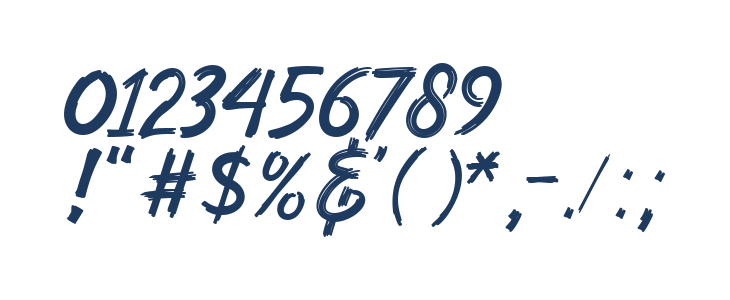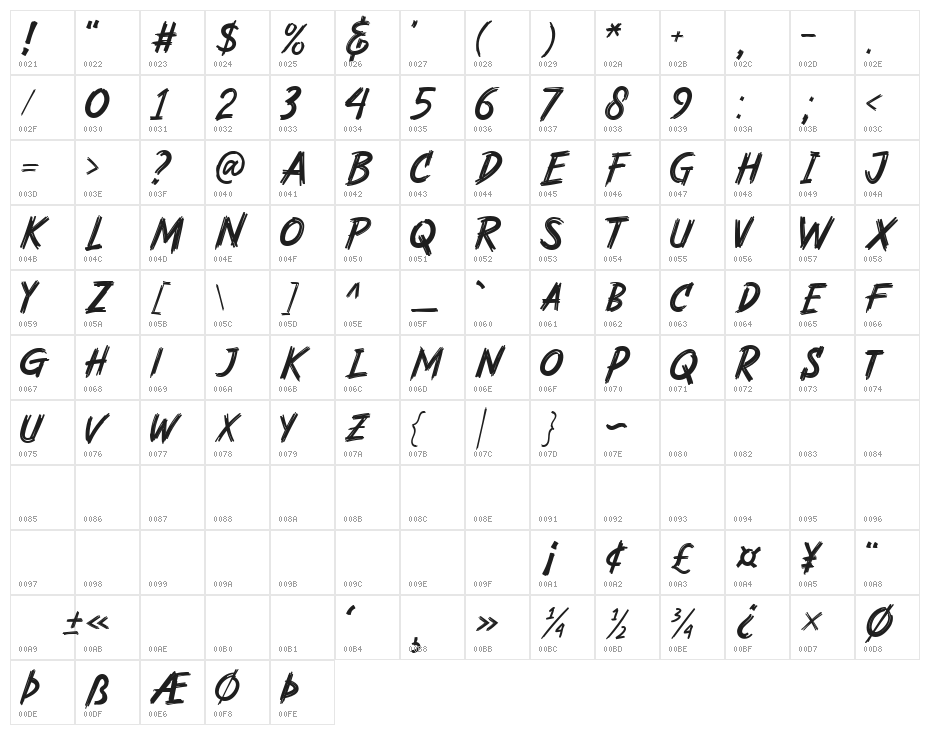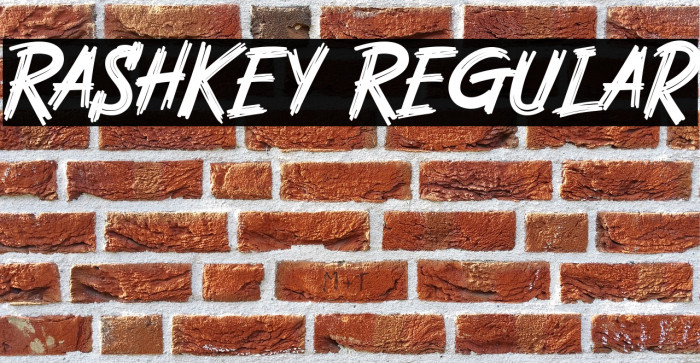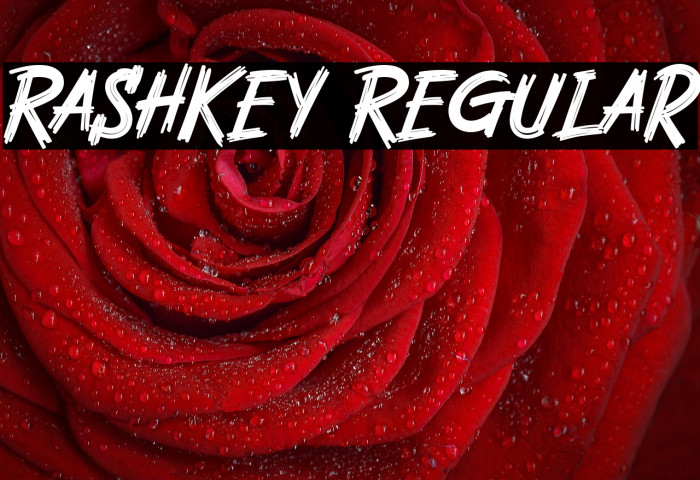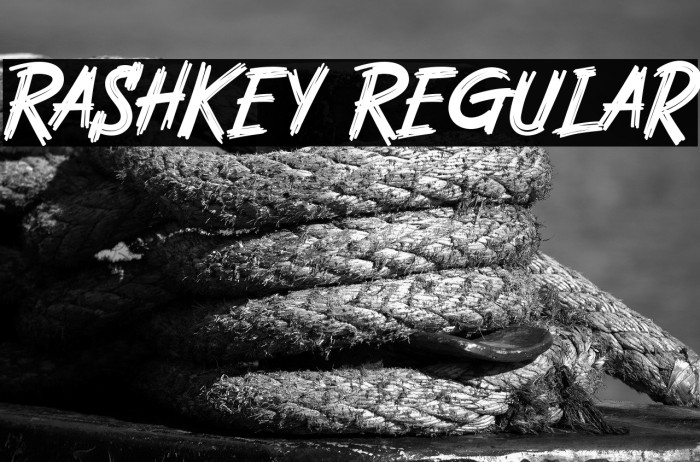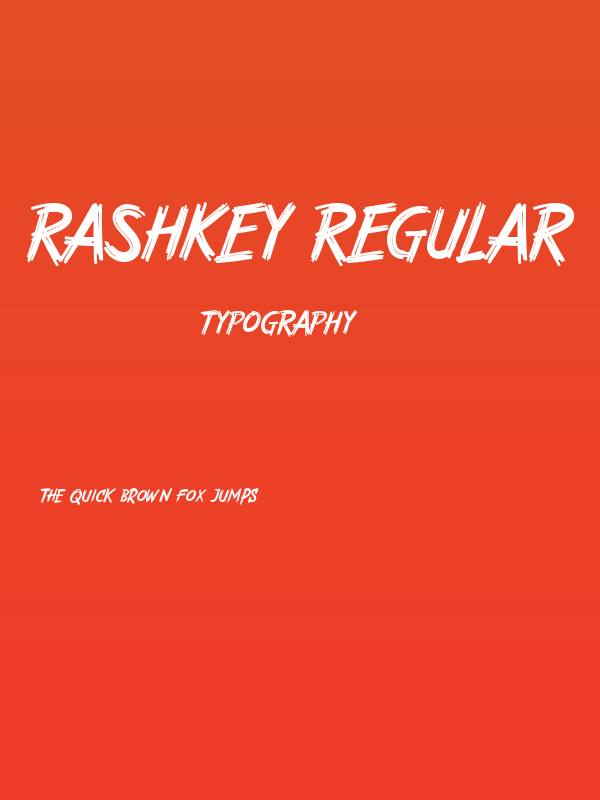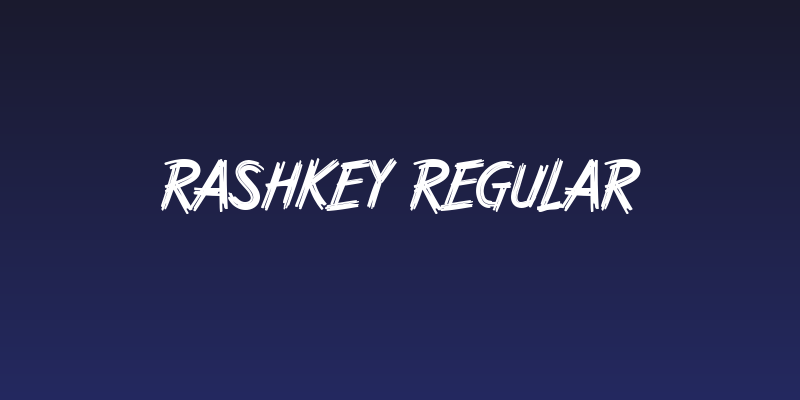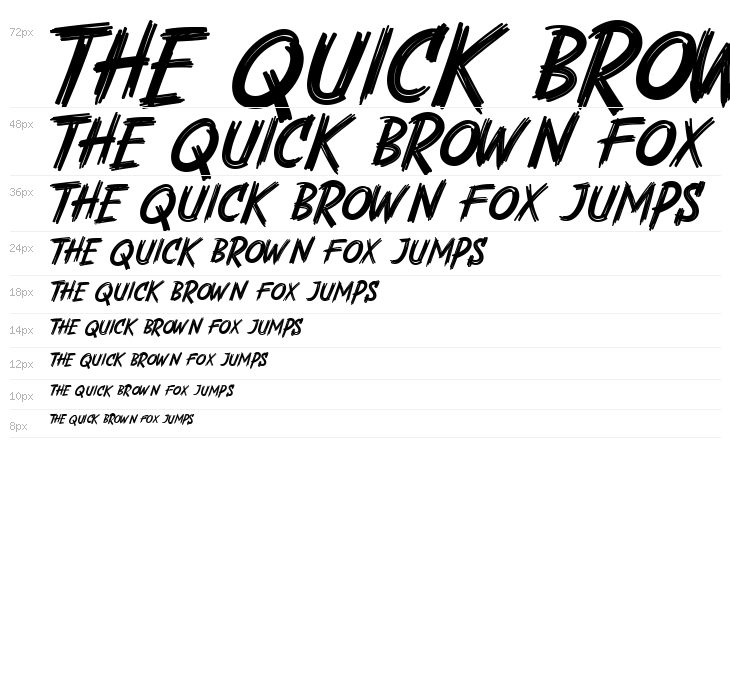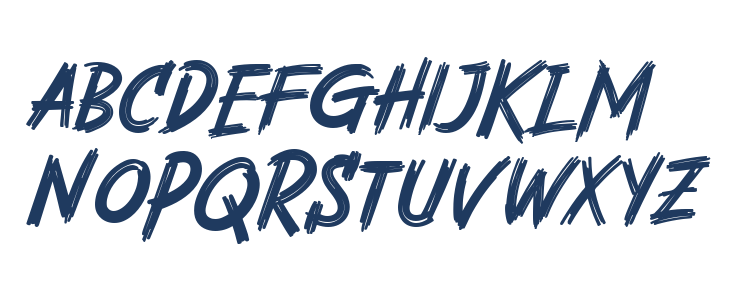
Rashkey Regular Font
Rashkey Regular Description
This font exhibits a bold and energetic style, characterized by its brush-like strokes that give it a dynamic and expressive appearance. The letters are slightly slanted, adding to the sense of movement and urgency. The uppercase and lowercase letters maintain a consistent style, with a rough, textured edge that suggests a hand-painted or graffiti-like aesthetic. The numerals and special characters follow the same design principles, ensuring a cohesive look across all characters. This font's unique style makes it stand out, perfect for projects that require a strong visual impact.
| Proposed Projects | Ideal for posters, branding, album covers, and any design needing a bold, artistic touch. |